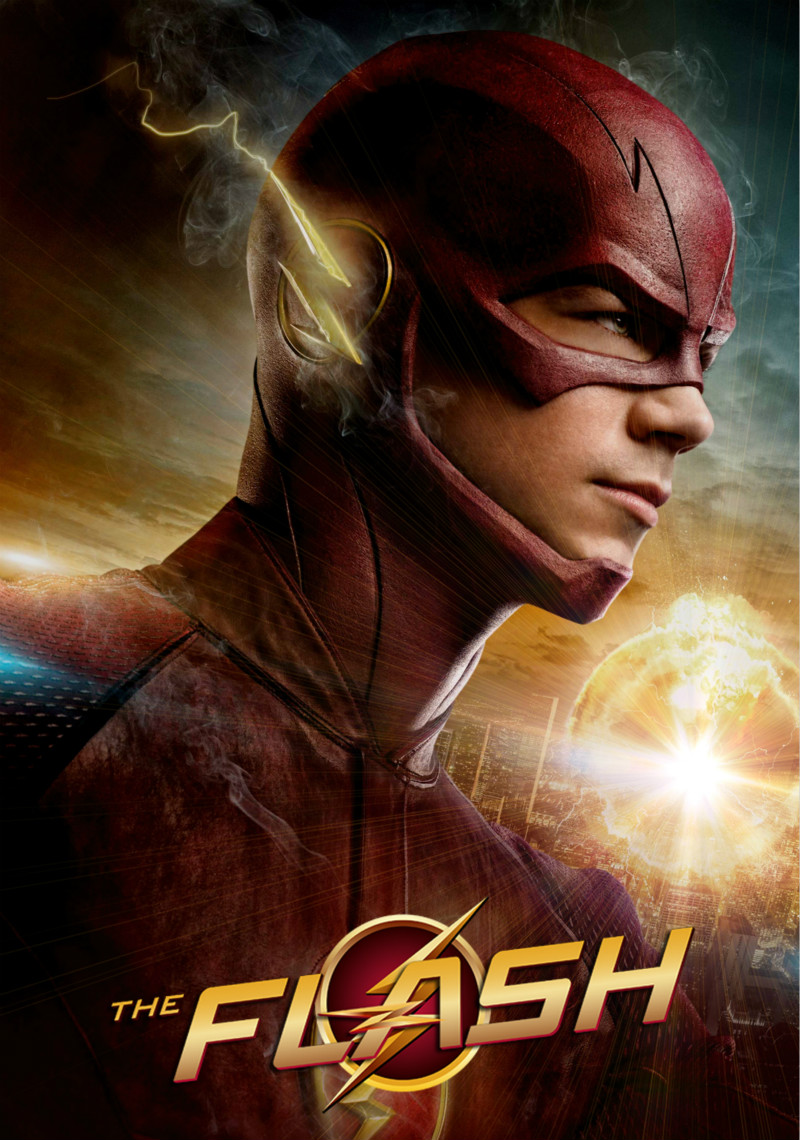
The Flash Font Generator
The Flash Font Generator - Flash font is a logo font that looks similar to the flash title. Web looking for flash fonts? Click to find the best 12 free fonts in the flash style. Every font is free to download! Before discussing this font, you should. Web the flash font.
Click to find the best 12 free fonts in the flash style. Flash font is a logo font that looks similar to the flash title. Every font is free to download! Web looking for flash fonts? Before discussing this font, you should. Web the flash font.
Every font is free to download! Click to find the best 12 free fonts in the flash style. Flash font is a logo font that looks similar to the flash title. Before discussing this font, you should. Web the flash font. Web looking for flash fonts?
Flash font is a logo font that looks similar to the flash title. Before discussing this font, you should. Web the flash font. Every font is free to download! Click to find the best 12 free fonts in the flash style.
The Flash Font Generator
Click to find the best 12 free fonts in the flash style. Before discussing this font, you should. Web looking for flash fonts? Every font is free to download! Flash font is a logo font that looks similar to the flash title.
Web looking for flash fonts? Web the flash font. Flash font is a logo font that looks similar to the flash title. Click to find the best 12 free fonts in the flash style. Before discussing this font, you should.
The Flash Font Generator
Every font is free to download! Click to find the best 12 free fonts in the flash style. Web looking for flash fonts? Flash font is a logo font that looks similar to the flash title. Before discussing this font, you should.
Flash font is a logo font that looks similar to the flash title. Web the flash font. Before discussing this font, you should. Every font is free to download! Click to find the best 12 free fonts in the flash style.
The Flash Font Generator
Web looking for flash fonts? Web the flash font. Flash font is a logo font that looks similar to the flash title. Click to find the best 12 free fonts in the flash style. Every font is free to download!
The Flash (TV Show) Font
Every font is free to download! Before discussing this font, you should. Flash font is a logo font that looks similar to the flash title. Web looking for flash fonts? Web the flash font.
Every font is free to download! Flash font is a logo font that looks similar to the flash title. Before discussing this font, you should. Web the flash font. Web looking for flash fonts?
Before discussing this font, you should. Flash font is a logo font that looks similar to the flash title. Web the flash font. Every font is free to download!